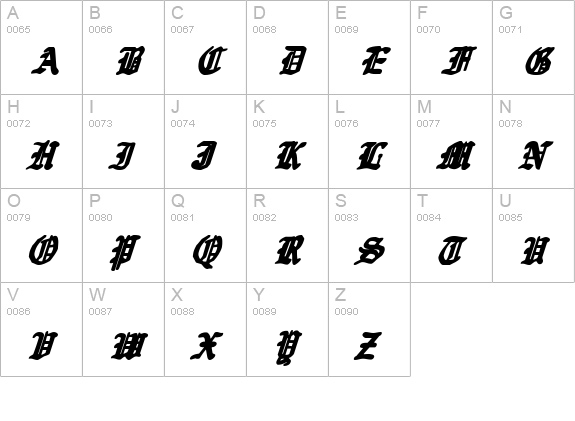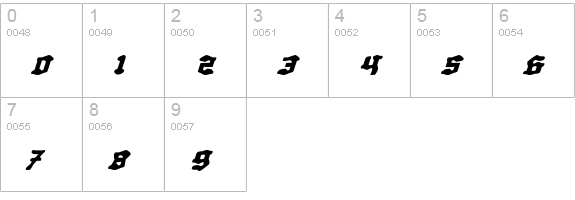
Quest Knight Italic Font Details
Quest Knight Italic is a distinctive, italic variant in the Quest typeface family \xE2\x80\x94 well suited to design and typography projects.
Introducing Quest Knight Italic font, a bold and dynamic typeface designed for those on a quest for creativity and adventure in their designs. With its sleek and modern italic style, Quest Knight exudes a sense of courage and determination, making it the perfect choice for projects that demand a touch of boldness and sophistication. This versatile font is ideal for a wide range of design applications, from branding to editorial design, packaging, and more. Its unique character shapes and sharp angles give text a distinctive edge, making it stand out from the crowd. Best of all, Quest Knight Italic font is available for free download at FontsMarket.com, allowing you to add this powerful typeface to your design arsenal without breaking the bank. Don't miss out on the opportunity to elevate your projects with this striking and expressive font. Embark on your design journey with Quest Knight Italic today!